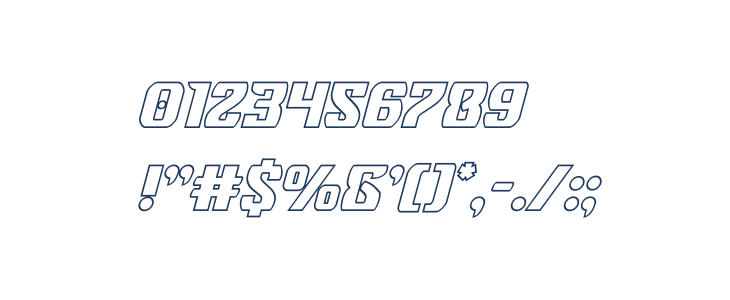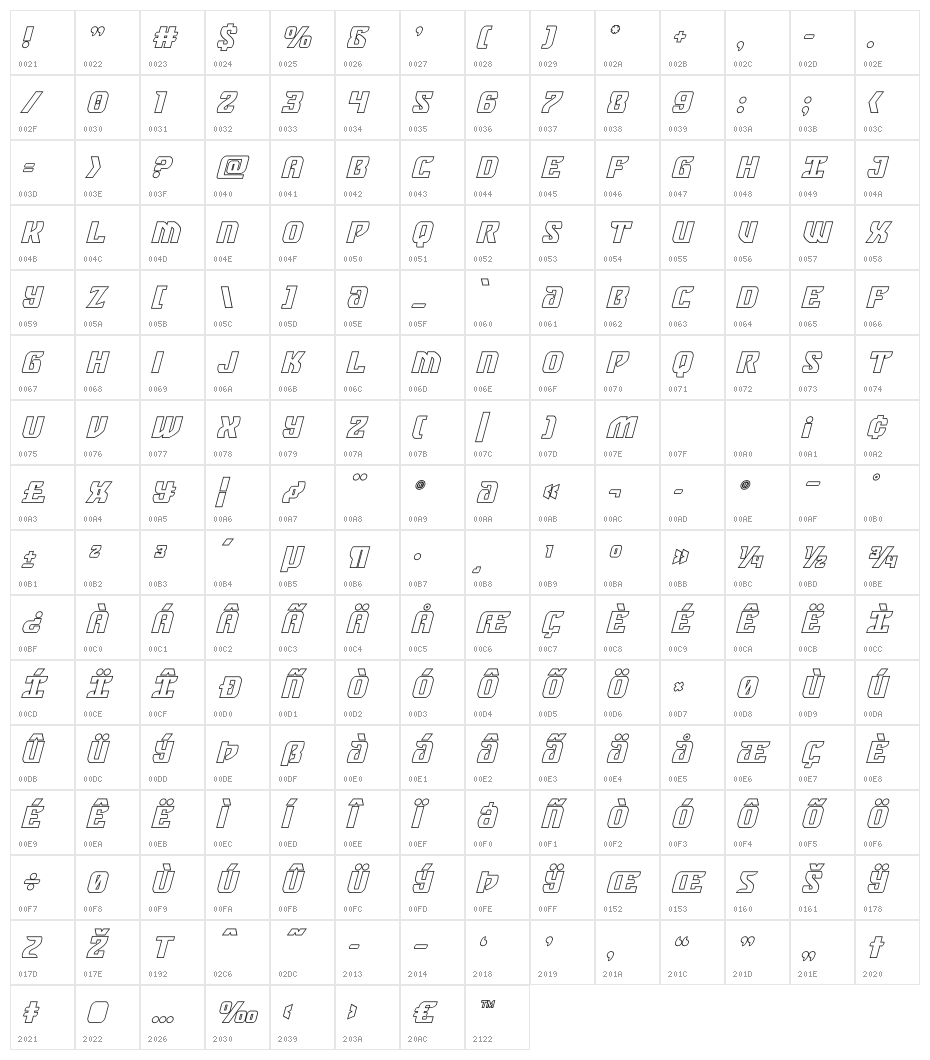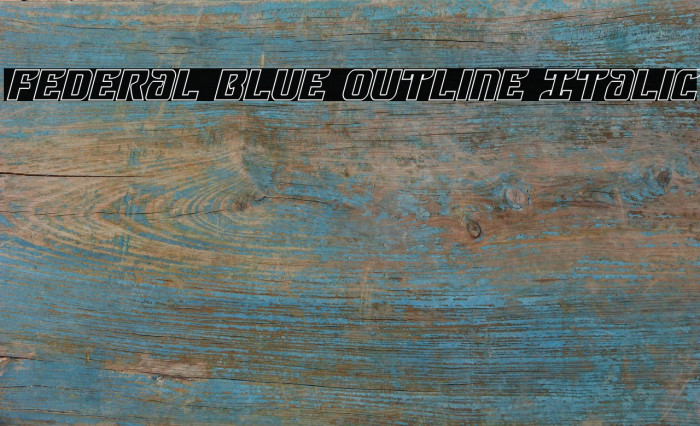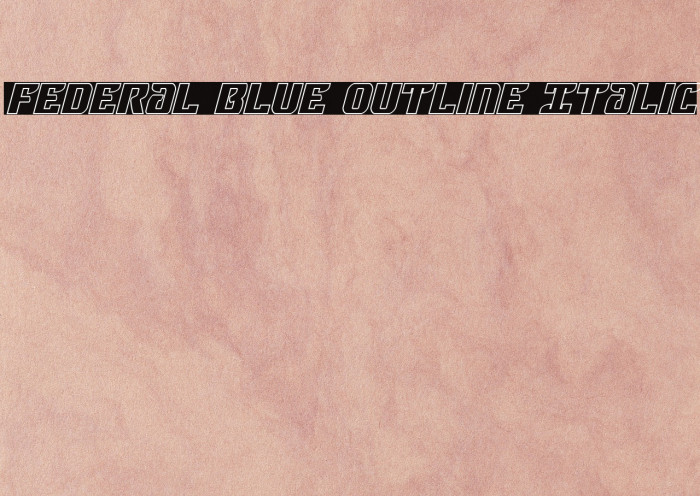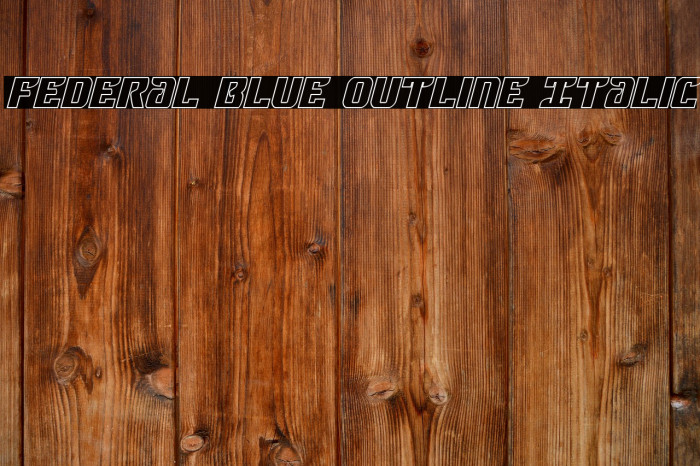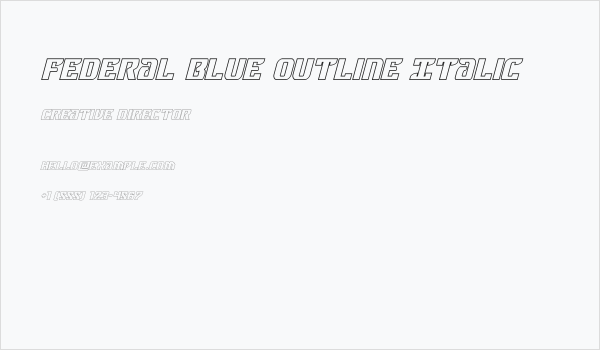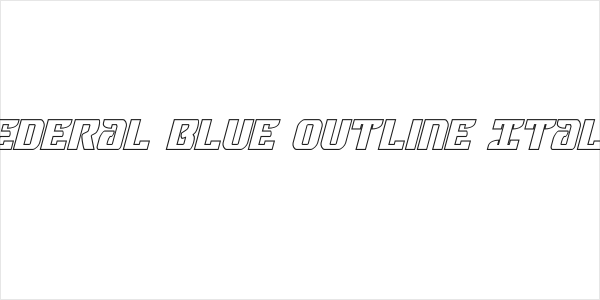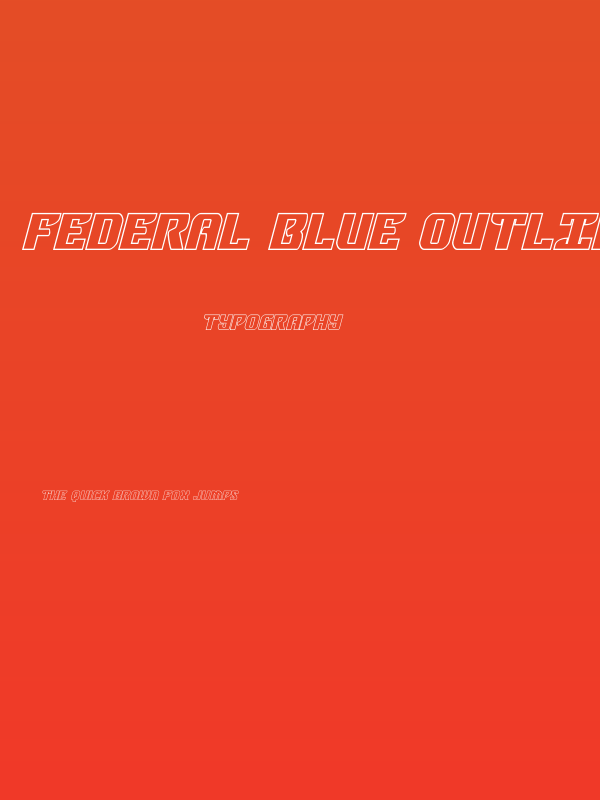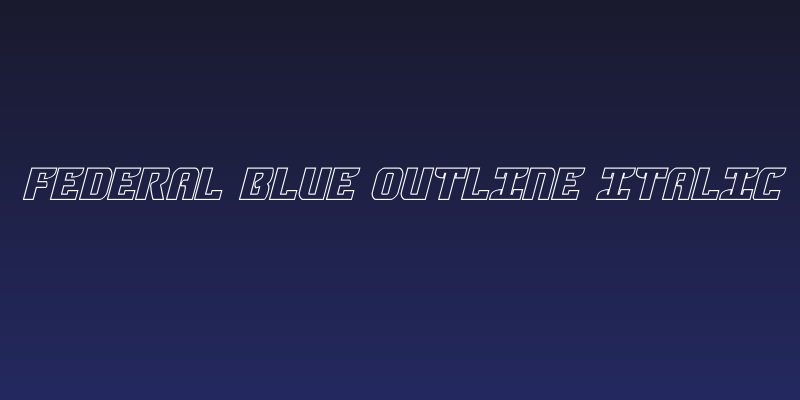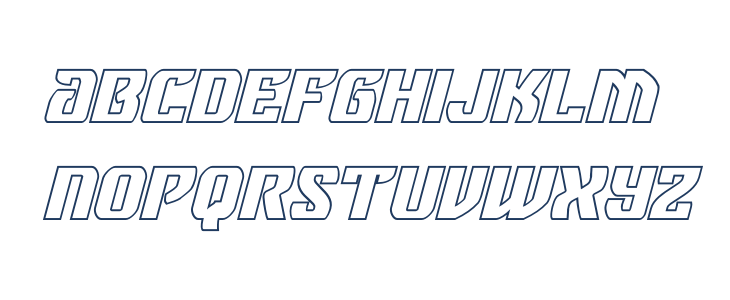
Federal Blue Outline Italic Font
Federal Blue Outline Italic Description
This font features a bold, italicized style with a distinct outline that gives it a three-dimensional appearance. The characters are structured with sharp, angular edges and a slight slant, enhancing its dynamic and modern look. The uppercase and lowercase letters maintain a consistent design, while the numerals and special characters complement the overall aesthetic. The outline effect adds a unique touch, making it stand out in various design contexts. Its geometric form and clean lines make it suitable for projects that require a strong visual impact.